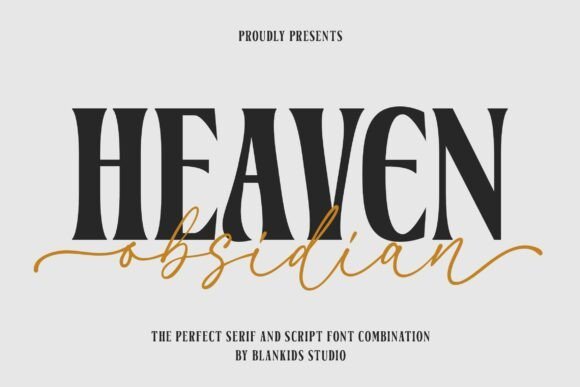
The Perfect Blend of Elegance and Vintage Charm
Have you ever stumbled upon a design project that sparked your creativity, making you want to dive in and get your hands dirty? That’s exactly what happens when you discover the perfect font, and for many designers, that perfect font is the Heaven Obsidian Font.
This stunning Vintage Elegant Serif and Script Font Combination is the ultimate go-to font for any professional project branding. Whether you’re working on logotypes, watermarks, posters, or product packaging, Heaven Obsidian Font is sure to elevate your design game. With its vintage elegant style, this font is a must-have for any designer looking to add a touch of sophistication to their work.
So, what makes Heaven Obsidian Font so valuable? Its versatility, of course! With a full set of vintage, elegant uppercase and lowercase letters, numerals, and punctuation, the possibilities are endless.
Heaven Obsidian Font Key Features
- Unique Characteristics: Heaven Obsidian Font features a distinctive blend of modern and mystical elements, with intricate details and ornaments that evoke a sense of luxury and sophistication.
- Kerning and Ligatures: Heaven Obsidian Font includes advanced kerning and ligature pairs, ensuring smooth and professional typography in both body text and display settings.
Heaven Obsidian Font Review
Overall, I’m impressed with the Heaven Obsidian Font. It’s a beautiful, high-quality font that’s perfect for creative projects. ✨ The unique blend of modern and mystical elements gives it a captivating feel that’s hard to resist.
- Unique aesthetic that sets it apart from other fonts
- High-quality rendering, even at larger sizes
- Perfect for creative projects, such as book covers, posters, and websites
- Available in a range of weights and styles to suit different needs
However, there are a few limitations to consider. ⚠️ While the font is well-suited for creative projects, it may not be the best choice for body text or formal documents. The unique style can be overwhelming in large quantities, and the font may not be as readable as more traditional fonts.
Overall, I’d give the Heaven Obsidian Font 4 out of 5 stars. It’s a beautiful, high-quality font that’s perfect for creative projects. While it may not be suitable for all types of projects, it’s definitely worth considering for anything that needs a touch of magic and mystery.
Heaven Obsidian Font Practical Application Guide
Heaven Obsidian Font is ideal for use in logos, branding materials, and website headers. It’s also great for creating a mysterious and luxurious feel in your designs. To get the most out of this font, experiment with different font sizes, colors, and combinations to find the perfect balance for your design.